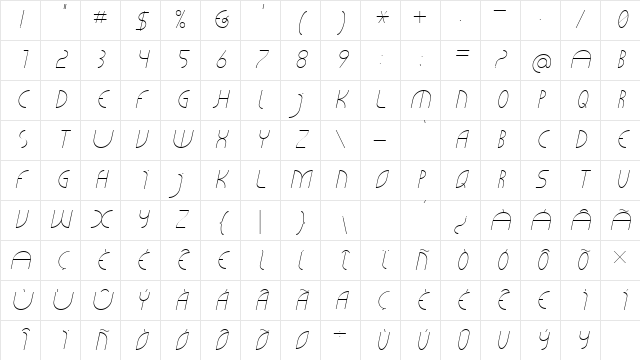
Complete CLiCHE 21 Italic Italic glyph index. Displaying only characters natively supported by CLiCHE 21 Italic Italic font.
CLiCHE 21 Italic is a composed and adaptable typeface that performs quietly and consistently across a wide range of design contexts. The slanted form adds forward momentum and visual energy.
Pro Tip: Use CLiCHE 21 Italic for emphasis, pull quotes, and subheadings where its slanted energy can add rhythm to the layout.